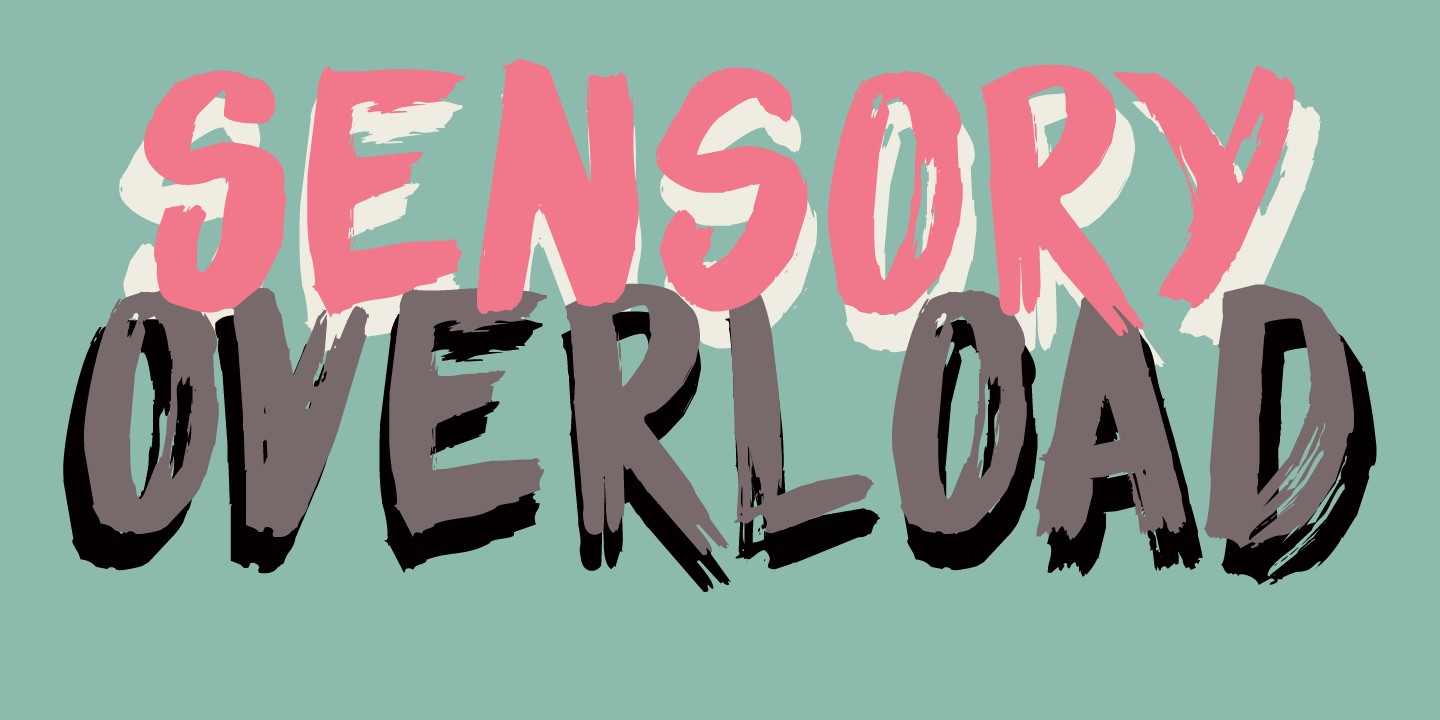
Sensory Overload Font is perfect for electronic music events, cyberpunk designs, extreme sports branding, nightclub graphics, festival promotions, intense gaming applications, and high-energy visual communications. This explosive typeface brings overwhelming visual impact and chaotic energy to adrenaline-fueled design projects.
Sensory Overload Font is exciting because it captures the intensity of overwhelming sensory experiences with its chaotic letterforms that convey maximum visual stimulation and electric energy while maintaining legibility within extreme design environments and high-impact applications.
The Sensory Overload Font family includes multiple chaotic variations and intense styling options that amplify visual impact and sensory intensity. This overwhelming collection provides designers with extreme options for creating memorable and intensely stimulating brand experiences.
Sensory Overload Font Free Download offers designers access to an intensely crafted typeface that embodies the overwhelming power of extreme sensory experiences and maximum visual stimulation. This explosive font features dramatically designed letterforms with chaotic details that create immediate associations with intense energy, sensory bombardment, and extreme visual impact. The typeface showcases overwhelming proportions and intense aesthetics that enhance high-energy communications while maintaining functional readability in extreme design contexts. Its chaotic character makes it particularly suitable for entertainment venues and extreme brands that require typography capable of conveying overwhelming intensity, sensory chaos, and maximum visual stimulation. Sensory Overload Font delivers exceptional intense impact for applications where conventional fonts feel inadequate for extreme communications and high-intensity brand positioning. The font's overwhelming appeal and chaotic aesthetic make it an essential tool for designers working on projects that require typographic expression of sensory intensity, visual chaos, and extreme energy that resonates with audiences seeking overwhelming experiences and maximum visual stimulation.